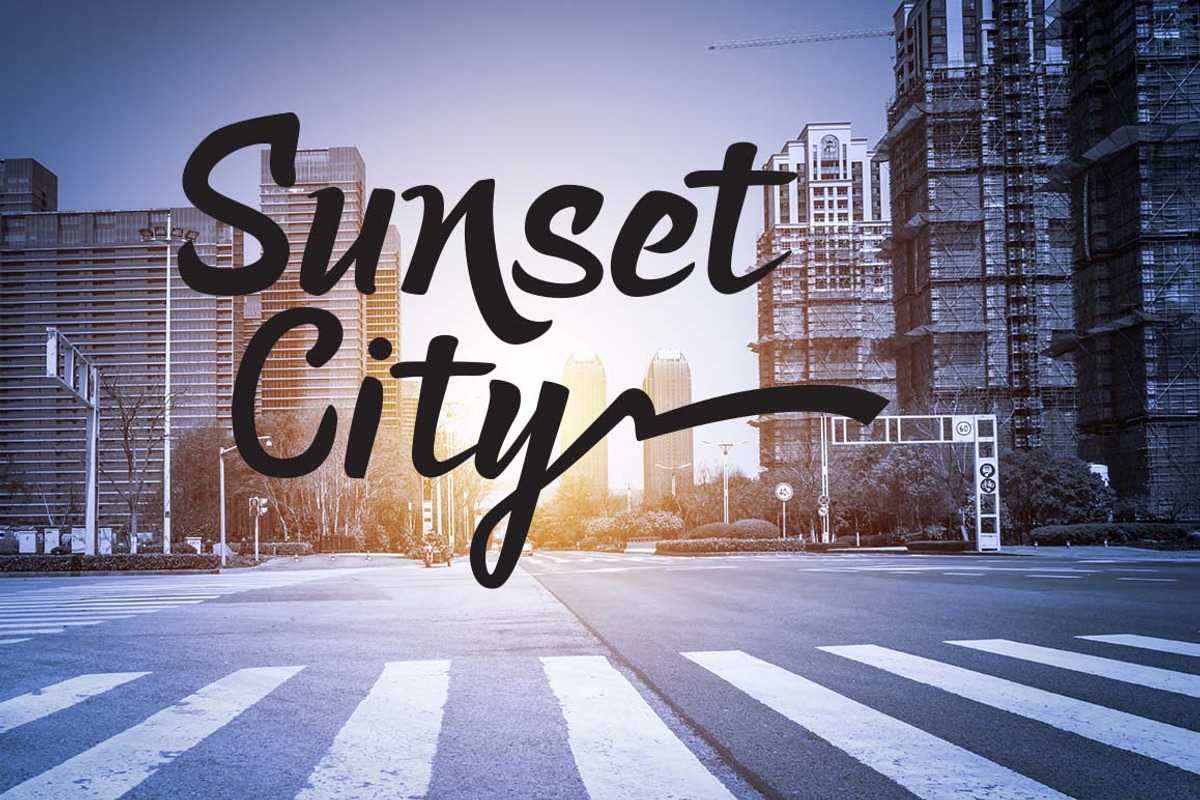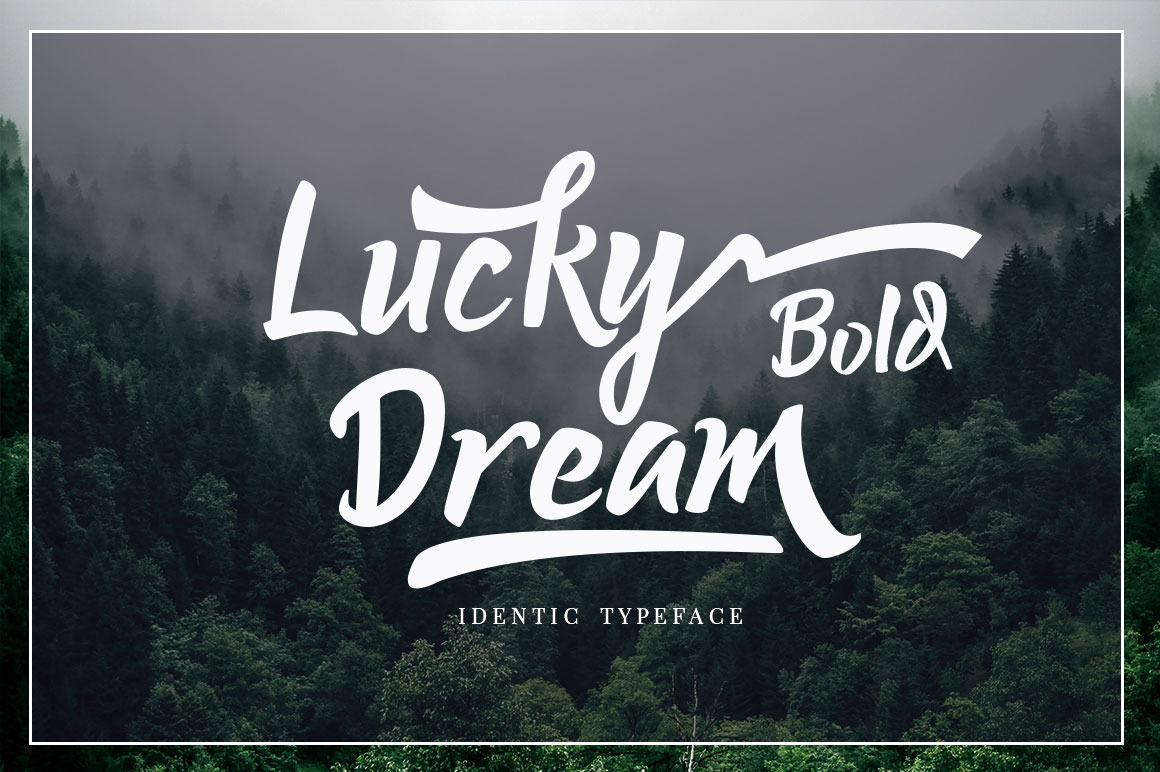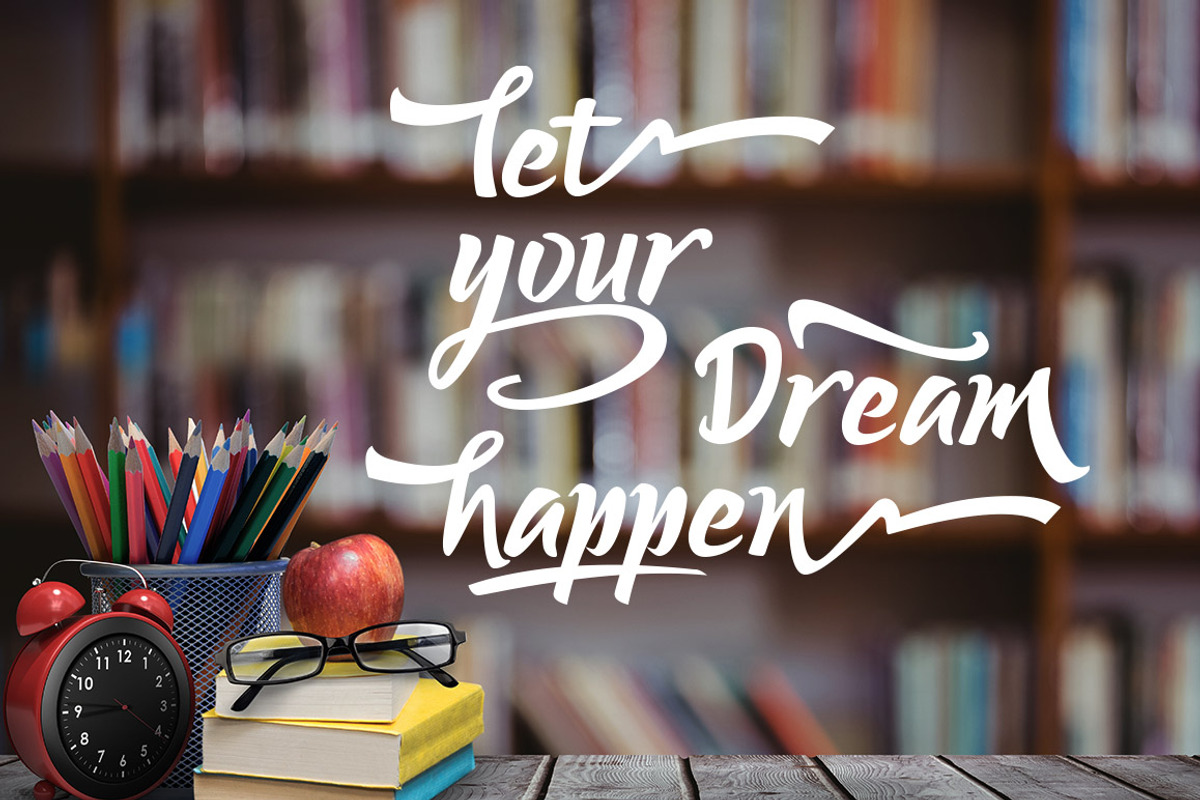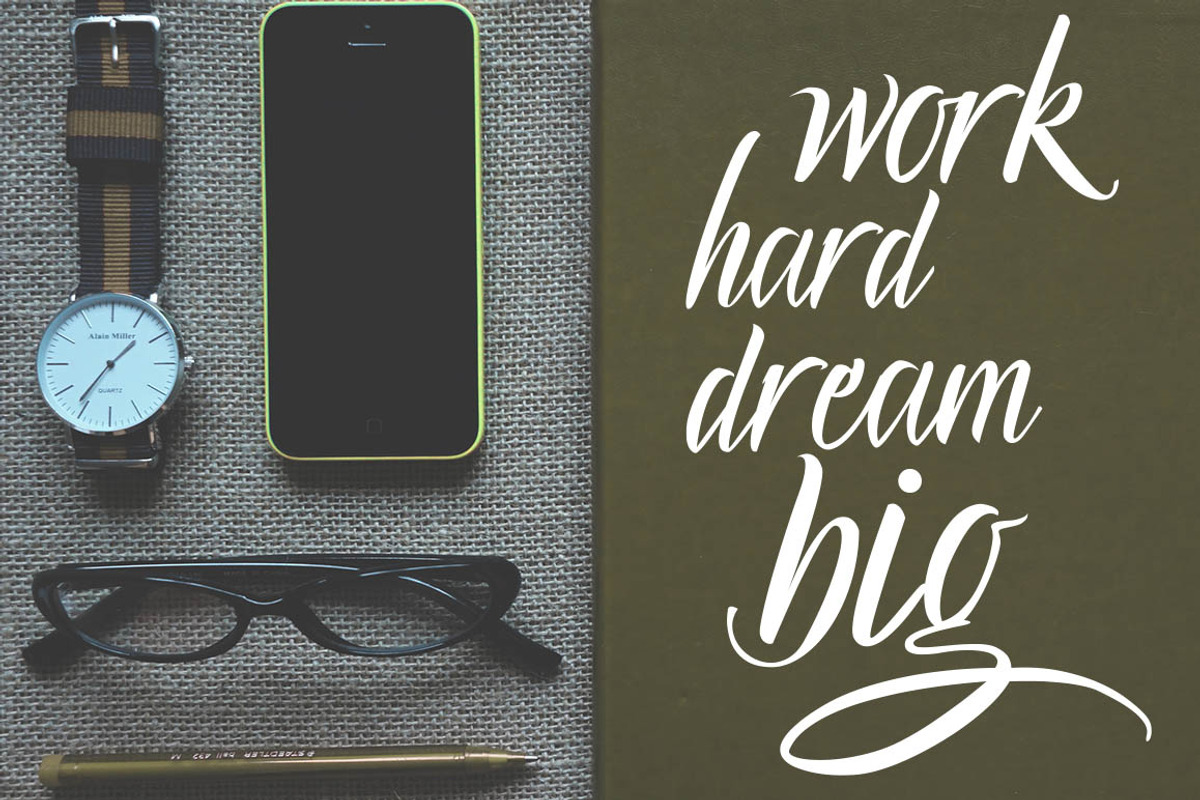
Lucky Dream Bold "Font Duo"
New Signature Font, a handmade font bold, new fresh & modern script with a calligraphy style. Lucky Dream Bold, Can used for anything from promotional material and handwritten quotes, to product packaging, signage, labels, newsletters, posters, merchandise and branding projects.